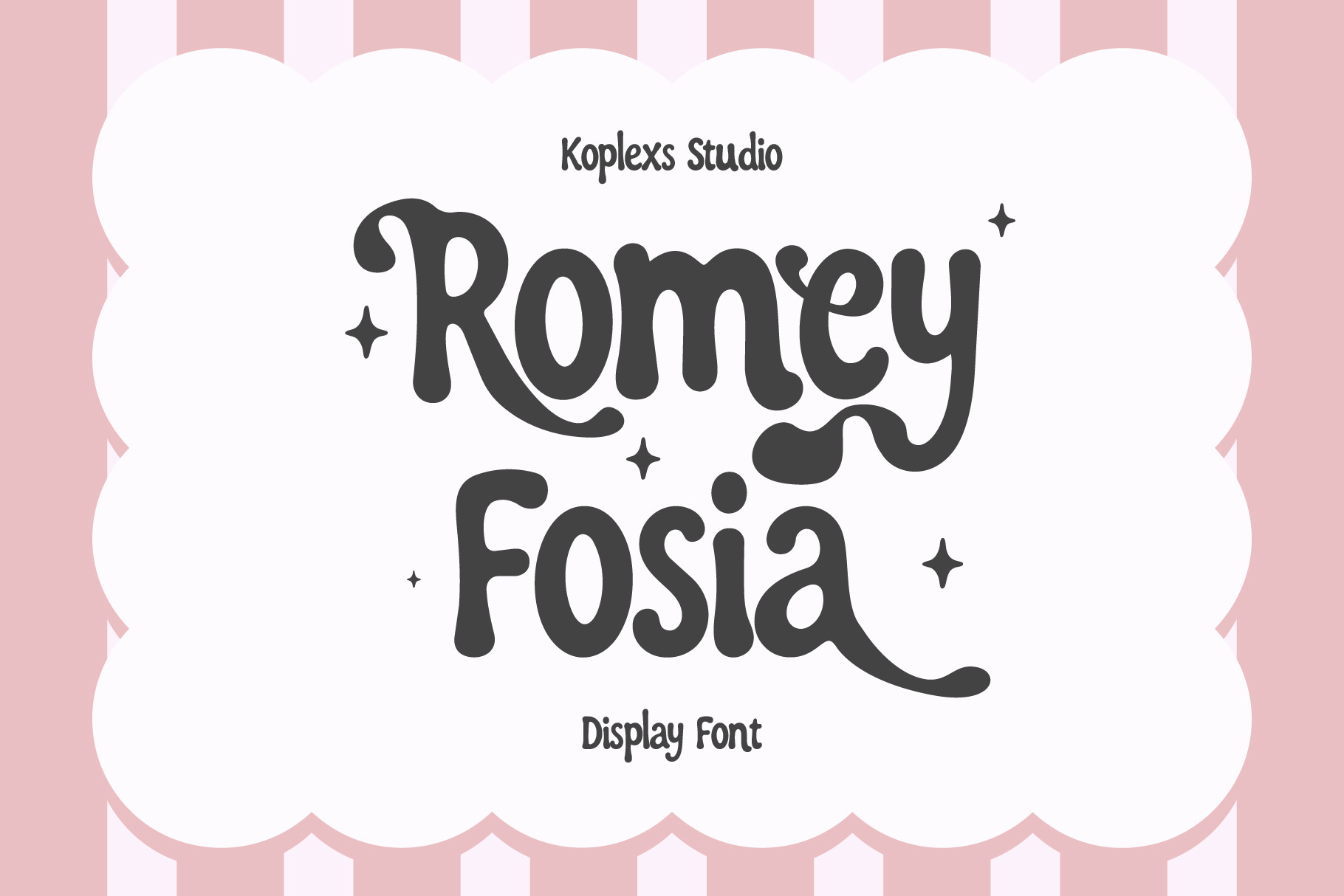
Romey Fosia Font
ROMEY FOSIA | PLAYFUL RETRO DISPLAY FONT
Meet Romey Fosia Font, a playful retro display typeface created for designs that need warmth, charm, and a memorable personality.
Romey Fosia features soft curves, chunky organic shapes, quirky letterforms, and decorative swashes. Its friendly hand drawn appearance combines nostalgic style with a fresh creative feel, making every word look expressive and easy to notice.
This playful display font works best for short text, headlines, names, quotes, and statement lettering. Use it at medium or large sizes to let its distinctive shapes and decorative details stand out.
Uppercase and lowercase letters
Numbers and punctuation
Multilingual character support
Decorative swashes and alternate characters
Unique retro inspired display style
Romey Fosia Font is a lovely choice for designers, small businesses, and creative makers looking for a quirky retro font that feels approachable, cheerful, and full of character.